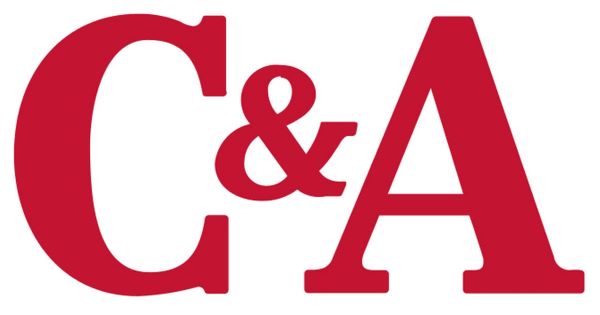
C&A Font
What Font is C&A?
The C&A Font used in the brand’s classic logo is most likely Linotype Centennial Pro 75 Bold — a strong and traditional serif typeface characterized by bold, upright letterforms and pronounced serifs. If you’re looking to reproduce the look of the logo without licensing the premium typeface, we’ve found a free alternative font that closely emulates the same robust serif style.
About C&A
C&A is a well-known European fashion retailer founded in 1861 by Clemens and August Brenninkmeijer. With its global presence and focus on affordable, trend-driven clothing, the brand has built a recognizable identity over decades. The typography of its word-mark—bold, serif-driven, and confident—reflects stability and prominence in the retail space, helping the logo stand out across signage, advertising, and product packaging alike.